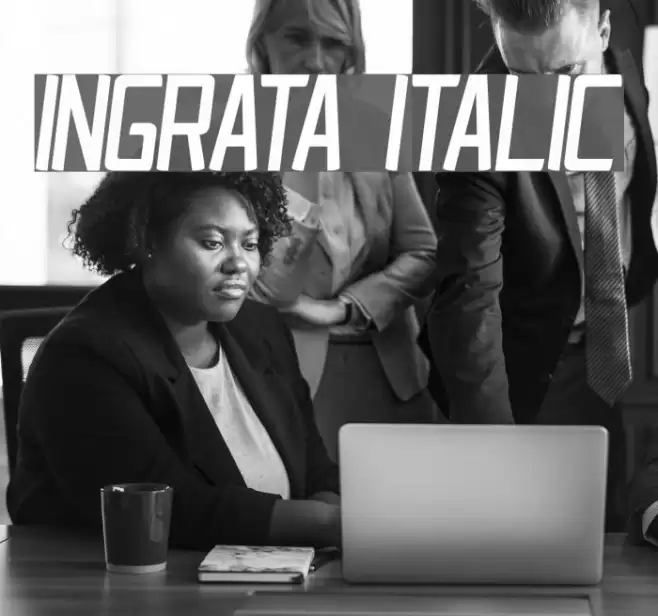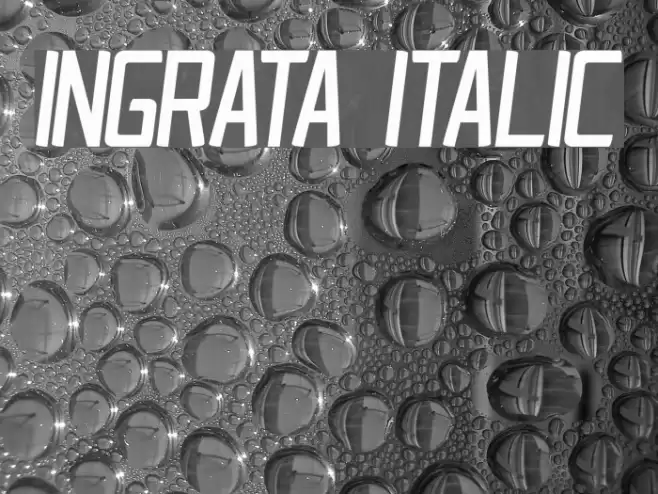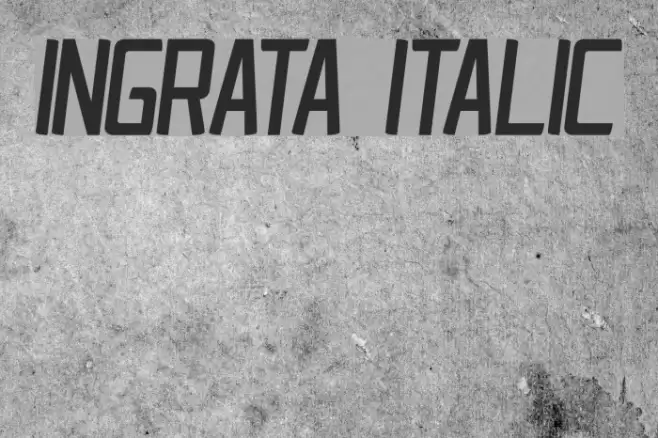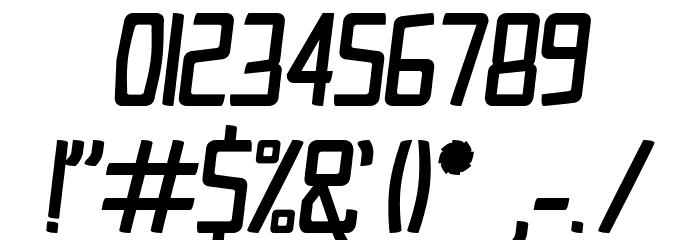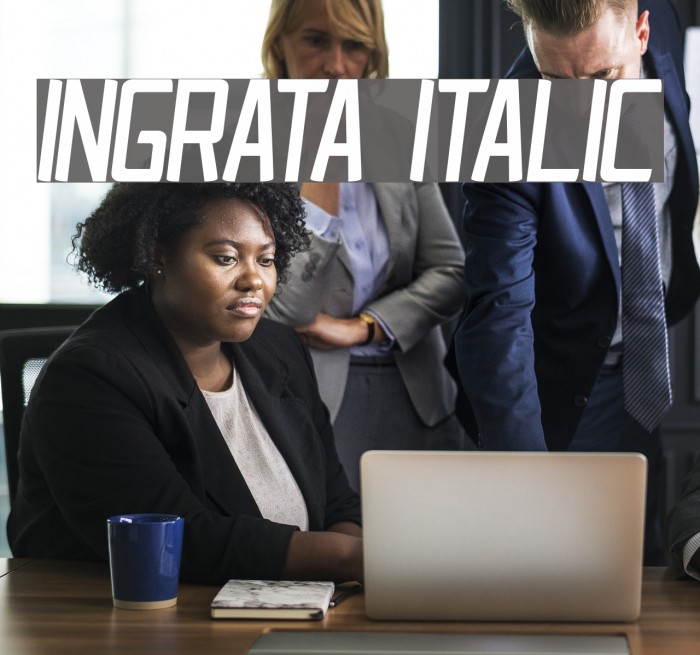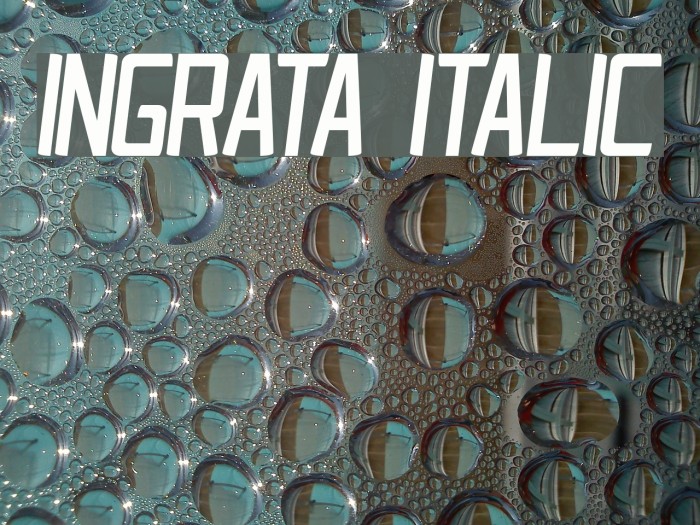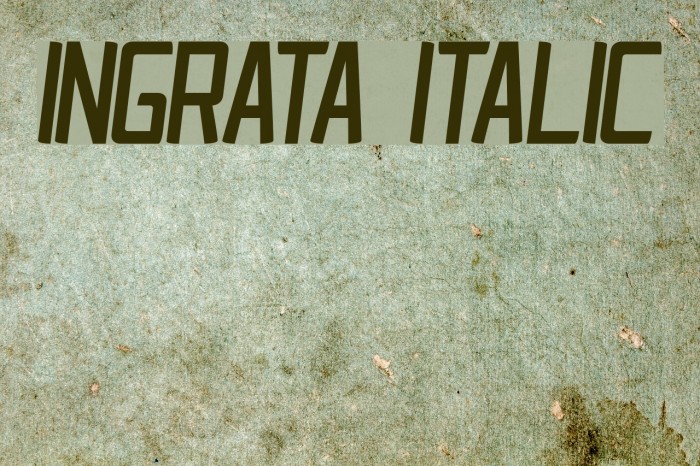
Ingrata Italic Font
Ingrata Italic Description
This font features a dynamic and modern italic style with a strong geometric influence. The characters are slightly slanted, giving a sense of motion and energy. The strokes are consistent in thickness, providing a clean and uniform appearance. The uppercase and lowercase letters maintain a cohesive design, with sharp angles and straight lines that enhance readability. The numerals are bold and clear, matching the overall aesthetic of the alphabet. Special characters are well-integrated, maintaining the font's sleek and contemporary look. This font is suitable for projects that require a modern and energetic feel.
A modern italic font with geometric influences and consistent stroke thickness from Uncategorized fonts.